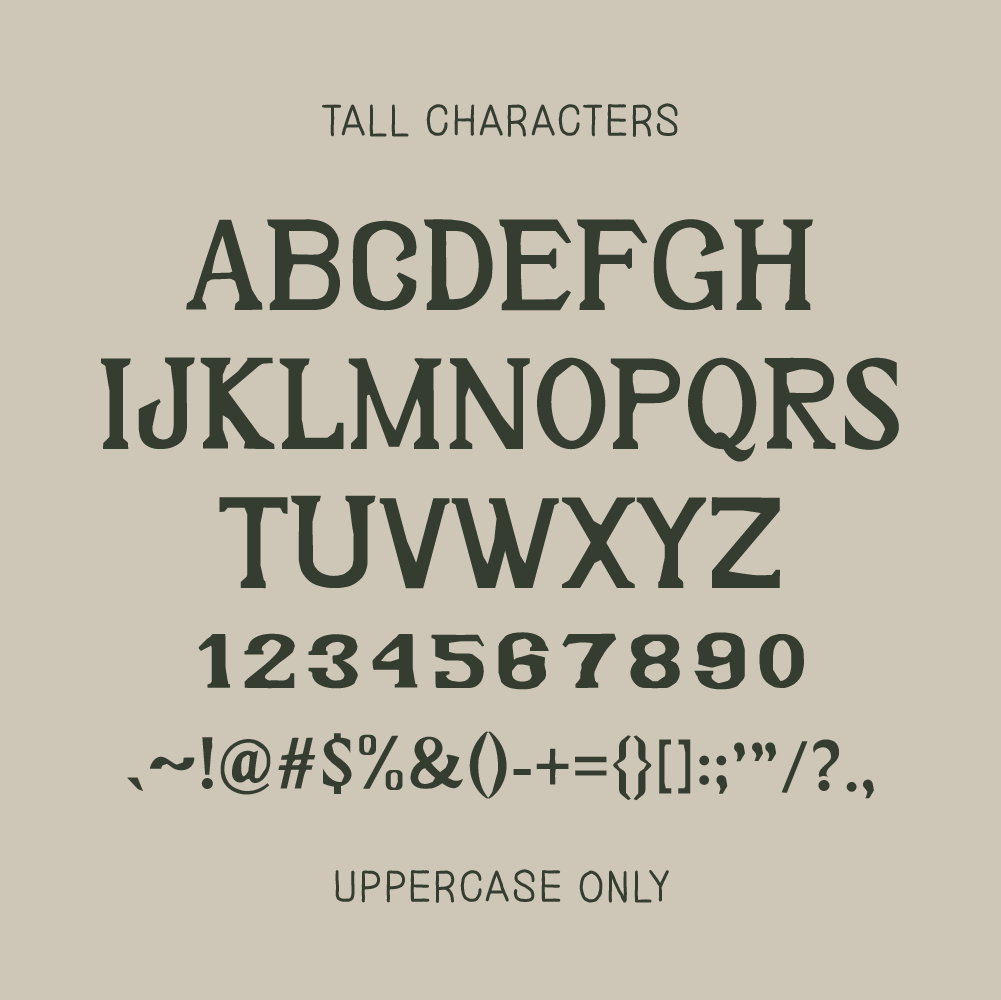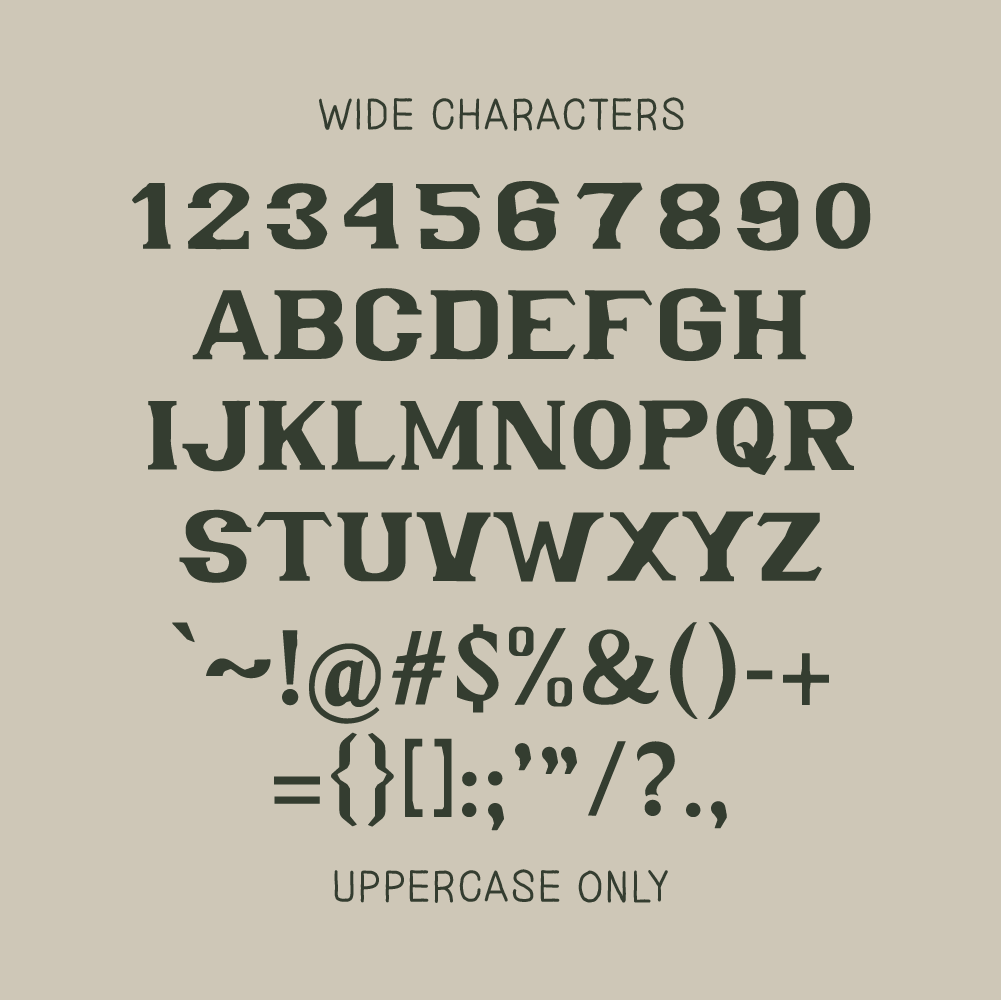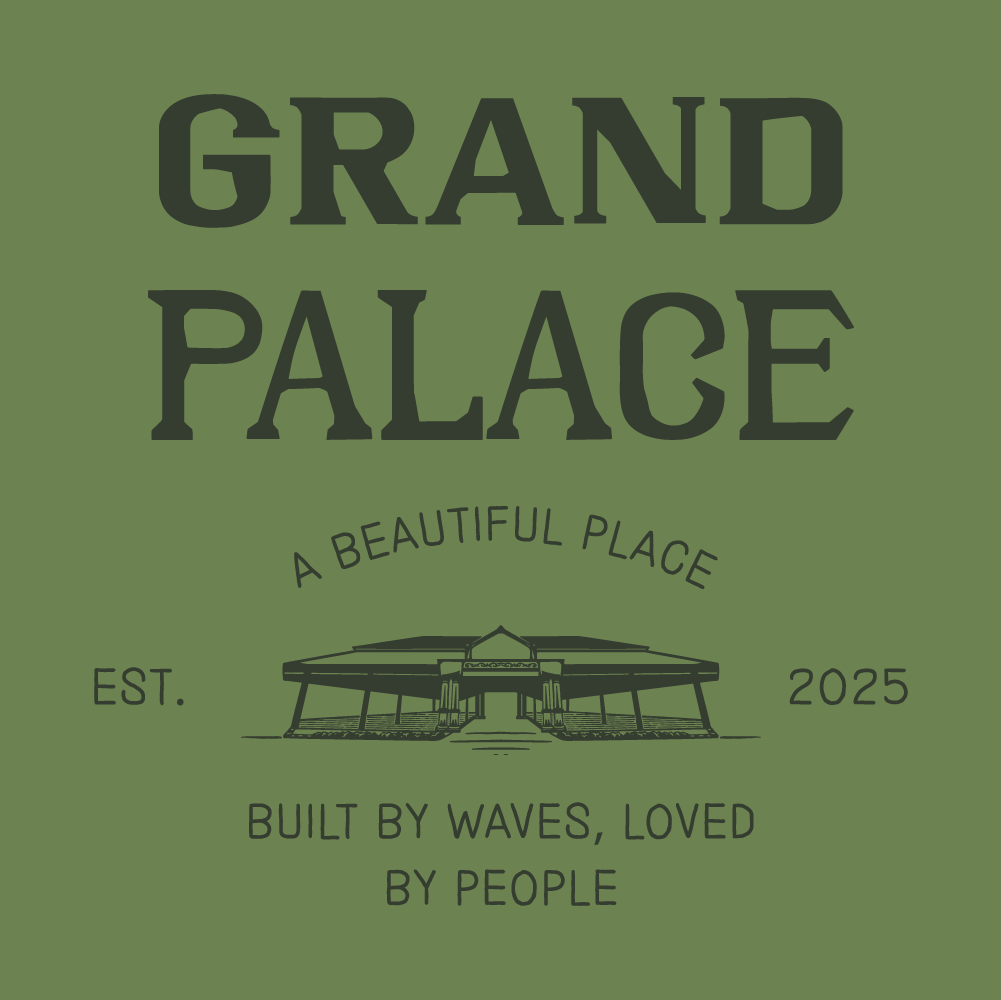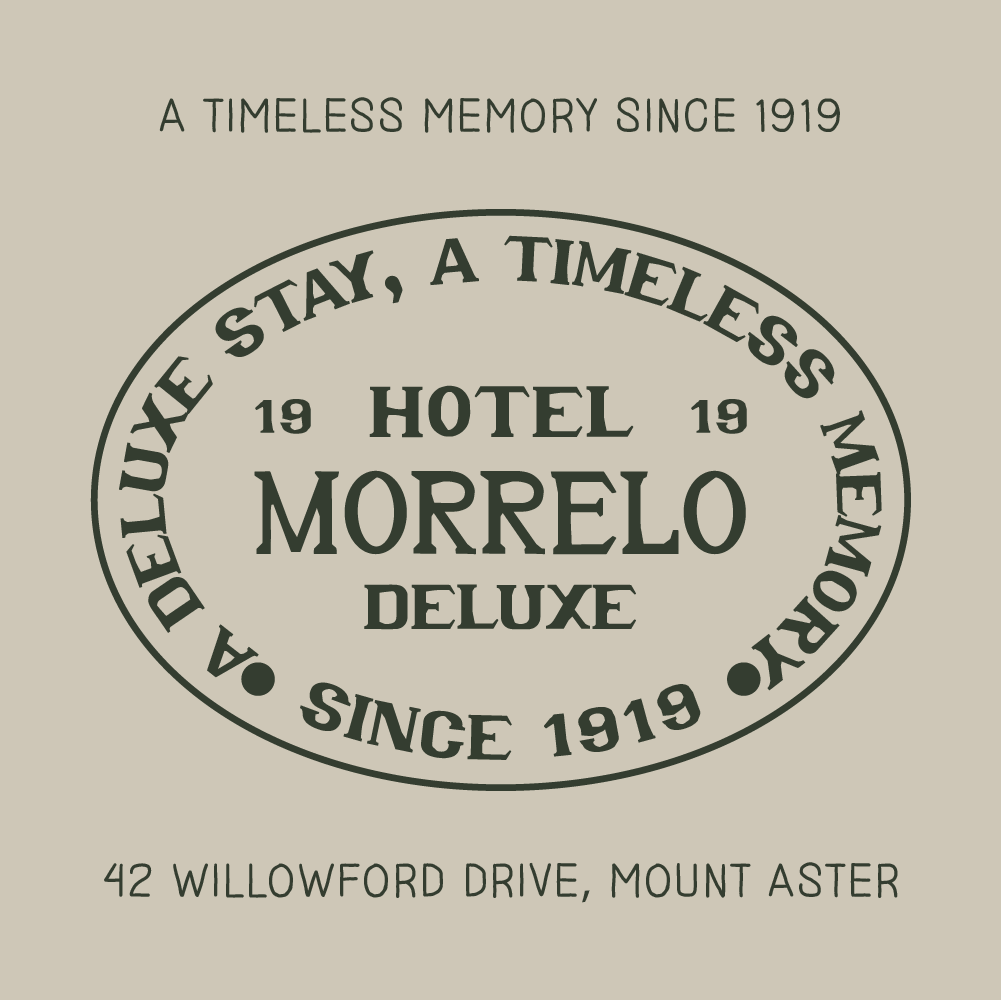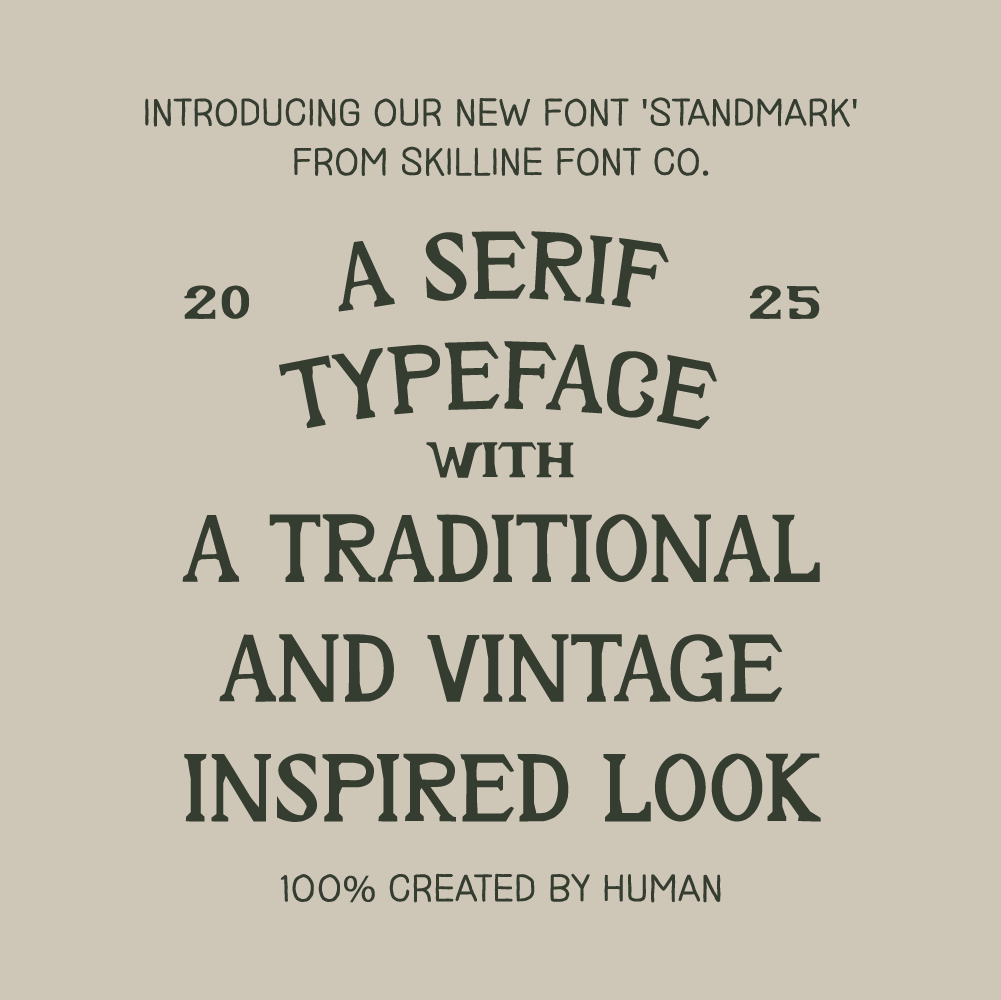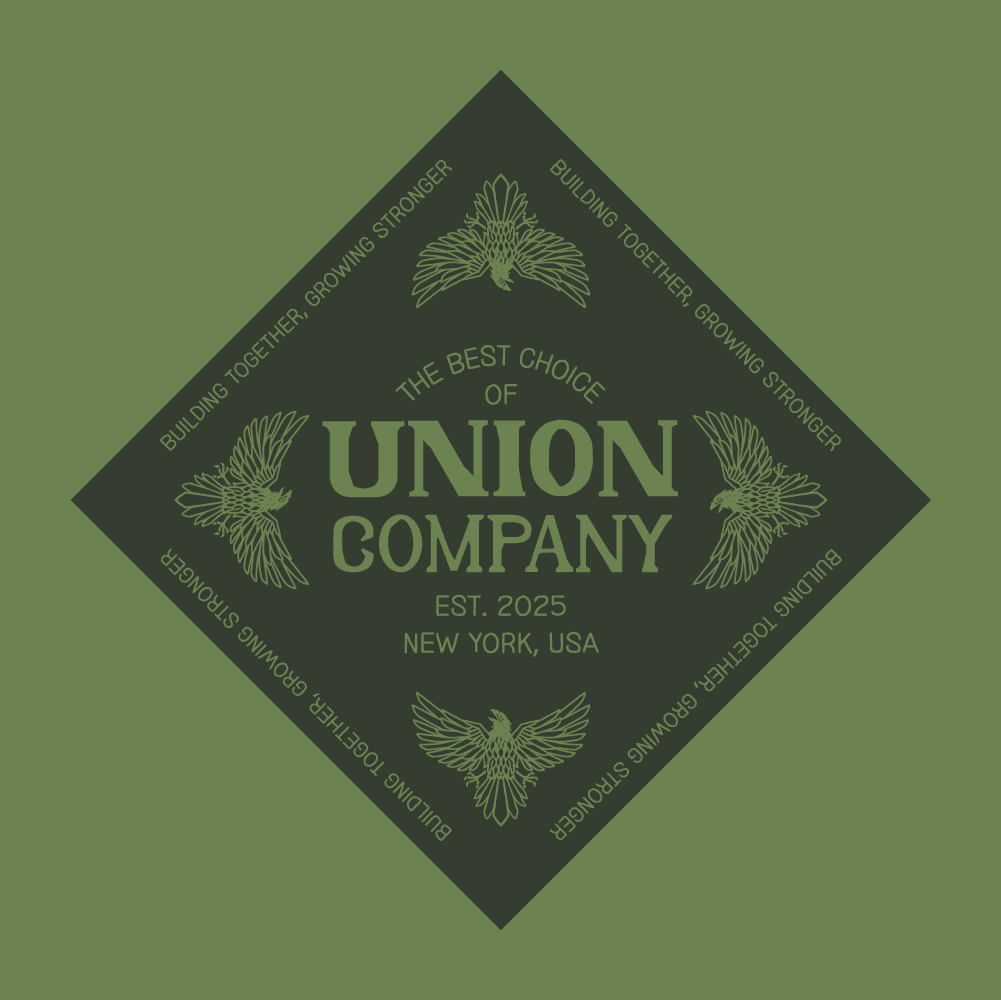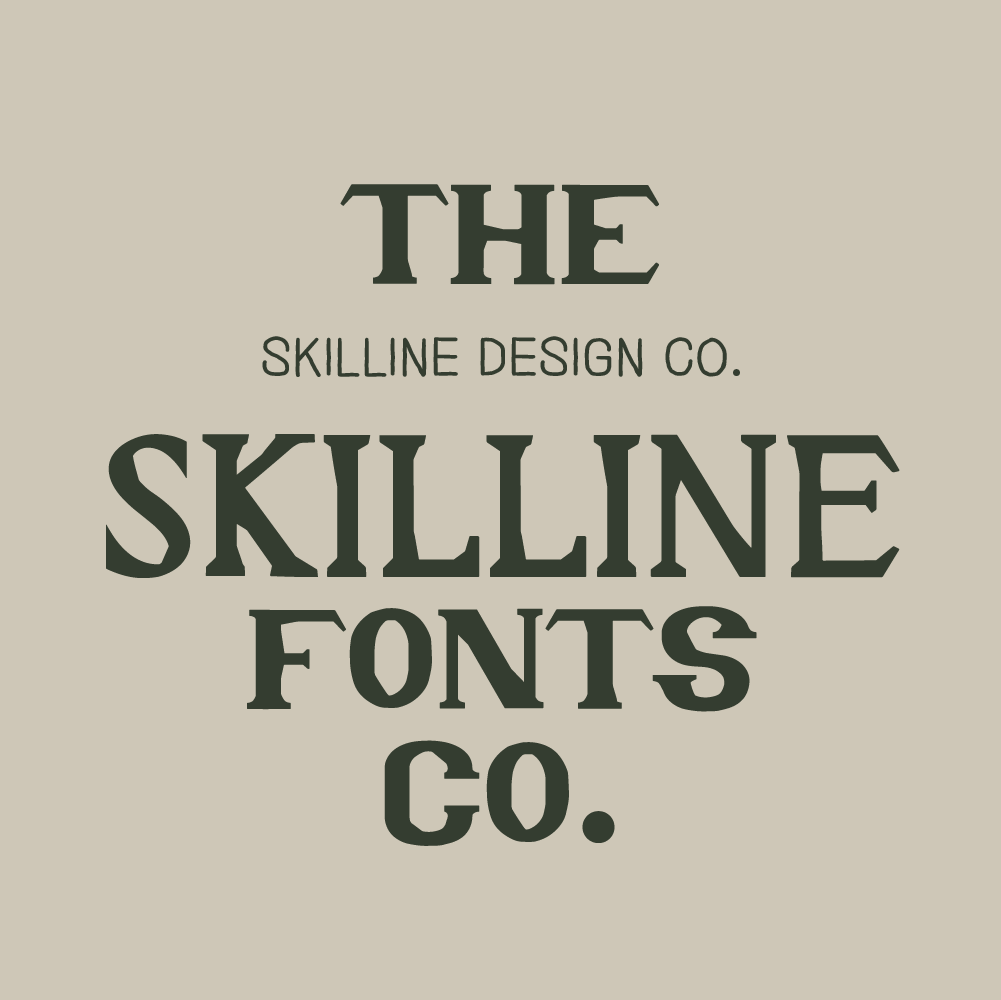
SFC Standmark - Tall
SFC Standmark - Wide
SFC Standmark - Sub
Standmark is a vintage serif typeface trio that blends classic structure with handcrafted detail. Inspired by traditional signage, letterpress, and old-world typography, it brings warmth, sophistication, and timeless character to modern creative projects. With three versatile styles: Tall, Wide, and Sub (Mono), Standmark adapts effortlessly from bold headlines to refined supporting text, delivering strong legibility with an authentic, handcrafted feel.
Ideal Applications for SFC Standmark Typeface
• Branding & logo design
• Editorial layouts & magazine titles
• Packaging & product design
• Apparel graphics & merchandise
• Posters, labels & signage
• Serif Typeface Family (Tall, Wide & Sub)
• Vintage-Inspired Letterforms
• Basic Numerals & Punctuation